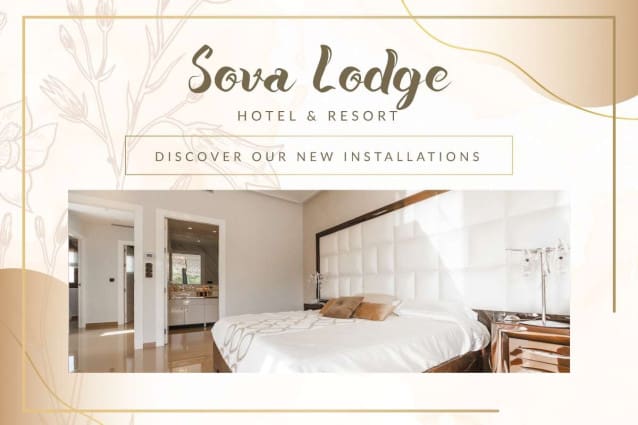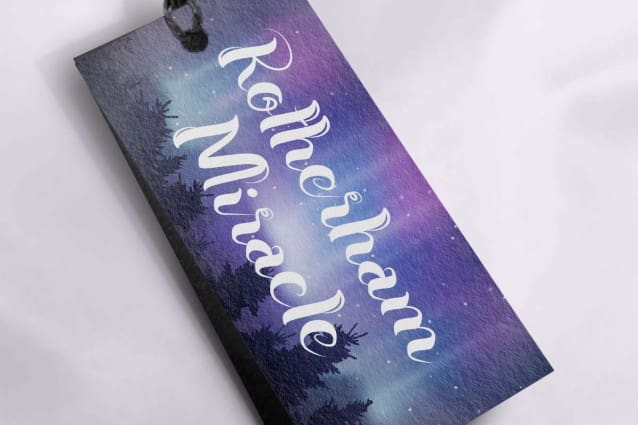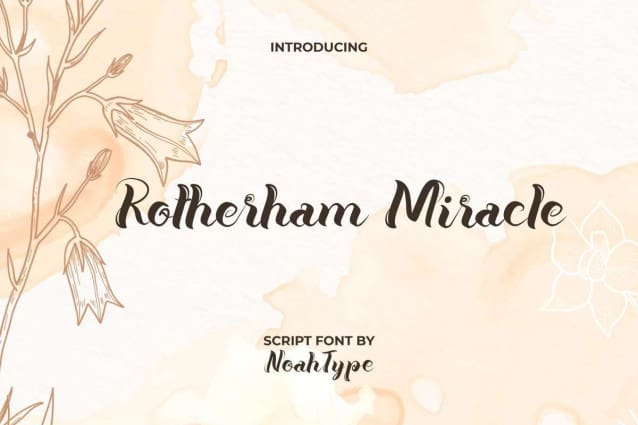
Rotherham Miracle Font
Rotherham Miracle Font is a calligraphic script font with unique shaded style which looks stunning. This font does the magic to make your designs look so dreamy, such as business card, custom design, invitation, label, magazine catalog, menu, poster, product packaging, quote, title, website, and more!
Rotherham Miracle Font includes full set of Uppercase and Lowercase Basic Characters, Numerals, and Punctuation. It also contain Ligature characters that will make it adorable and suitable for many industries, such as cosmetic, fashion, florist, furniture, interior design, perfume, restaurant, skincare, spa and salon, wedding or event organizer, etc.